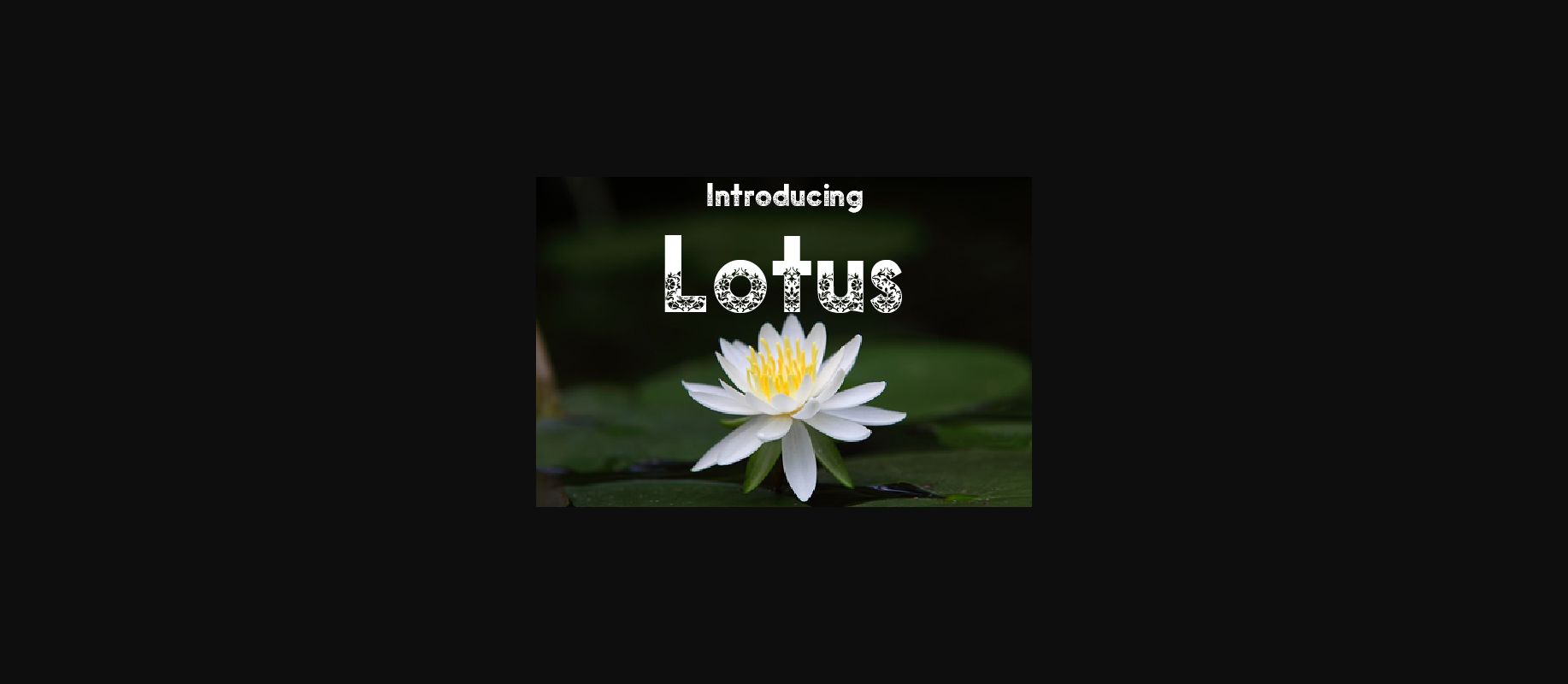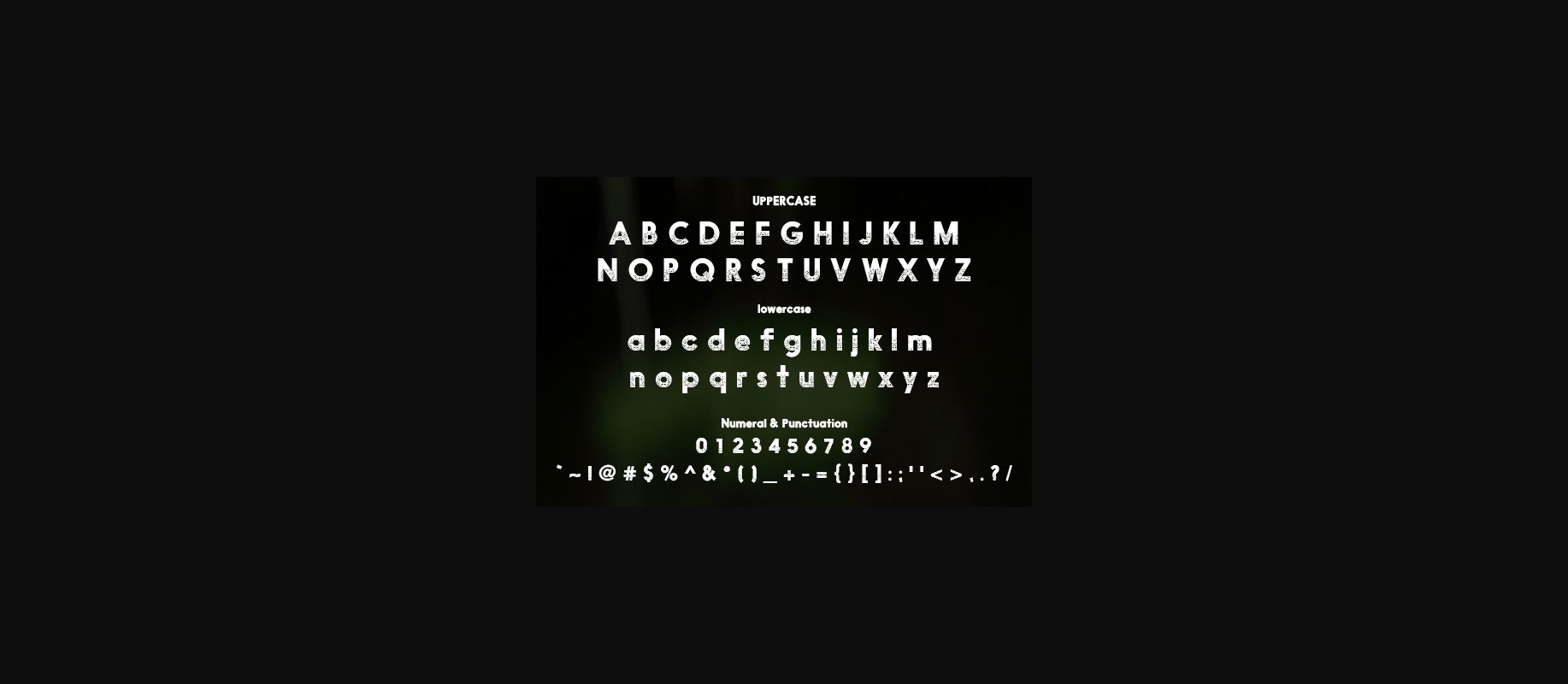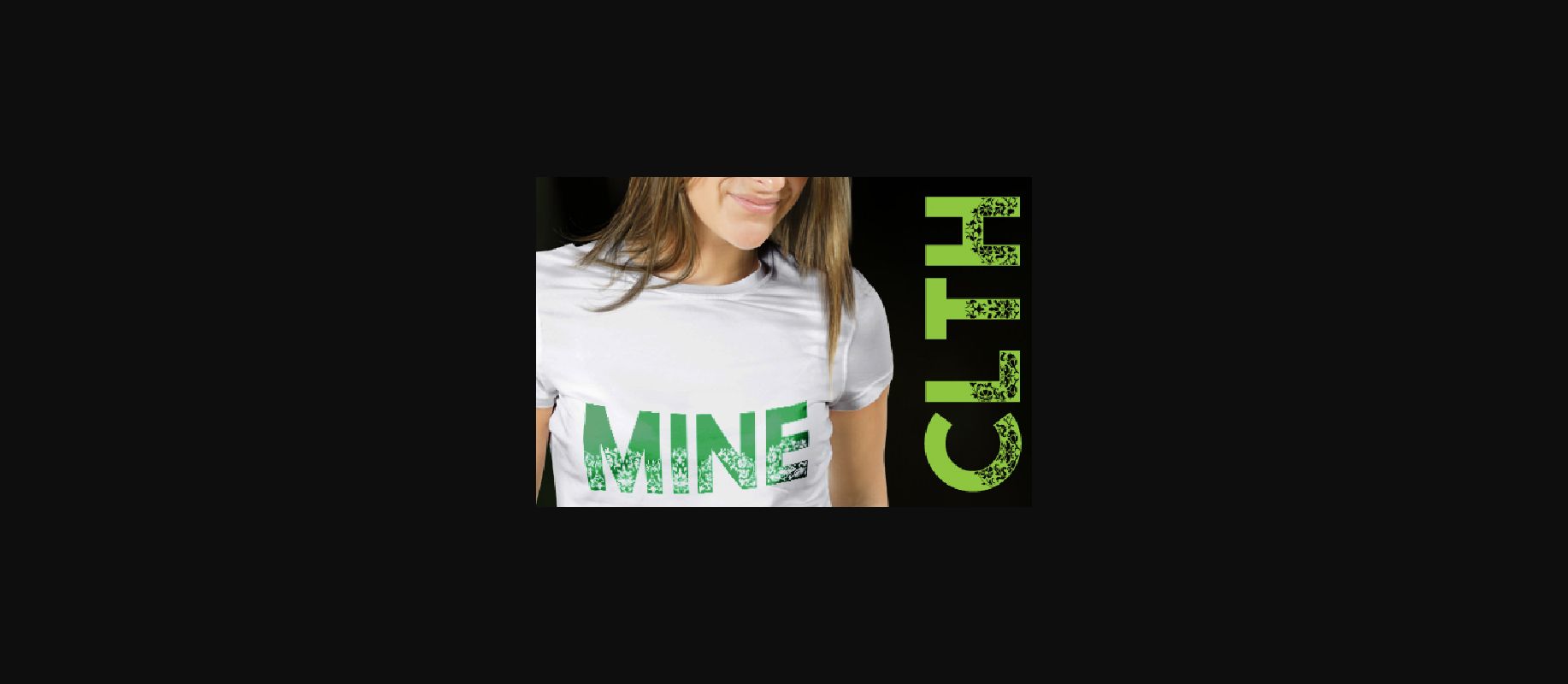
Lotus Font
About Lotus Font
The Lotus is an amazing typeface. Its characters are decorated with beautiful floral elements which will give your design an unique touch.
It’s perfect for name cards, posters, logos, magazines, covers, banners, t-shirts and headers.